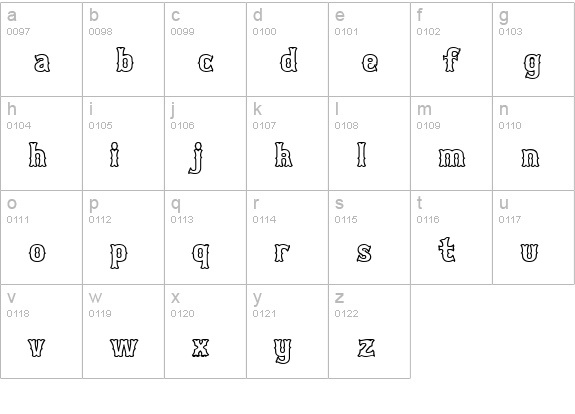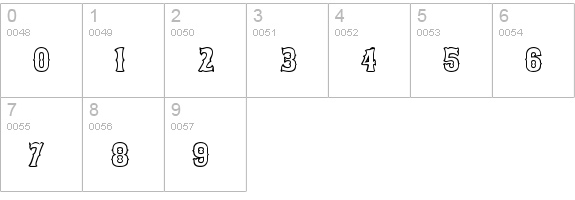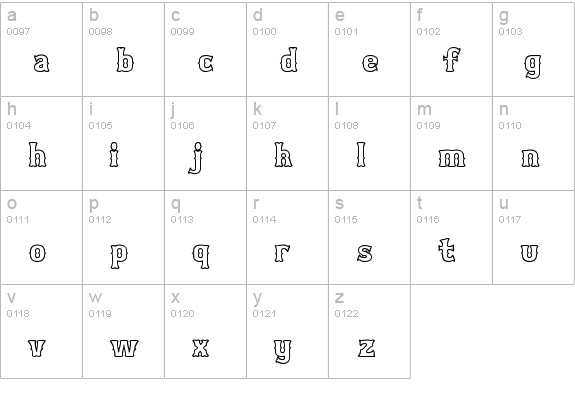
Bosox Outline Heavy Font Details
Bosox Outline Heavy is a heavy, high-impact variant in the Bosox typeface family \xE2\x80\x94 well suited to high-impact headlines, posters, and display advertising.
Bosox Outline Heavy font is a bold and eye-catching typeface that will make your designs stand out from the crowd. With its thick and strong outline, this font exudes a sense of power and confidence. Whether you're working on a poster, logo, or any other design project, Bosox Outline Heavy font will give your text a commanding presence. Its tall and bold letterforms are perfect for headlines and titles, ensuring that your message gets noticed. One of the best things about Bosox Outline Heavy font is that it is freely available to download at FontsMarket.com. This means that you can bring this impressive font into your design arsenal without breaking the bank. It's a fantastic opportunity to add a touch of professionalism and sophistication to your work, without having to spend a dime. The versatility of Bosox Outline Heavy font is another reason to love it. It works well in both digital and print formats, making it suitable for a wide range of design projects. Whether you're creating a website, designing a brochure, or even working on a branding project, this font will adapt effortlessly to your needs. In addition to its striking appearance, Bosox Outline Heavy font also offers excellent legibility. Each letter is carefully crafted to maintain clarity, even at small sizes. This ensures that your message is effectively communicated, no matter the context. If you're looking for a powerful and impactful font that is freely available, Bosox Outline Heavy font is the perfect choice. Download it today at FontsMarket.com and take your designs to the next level.